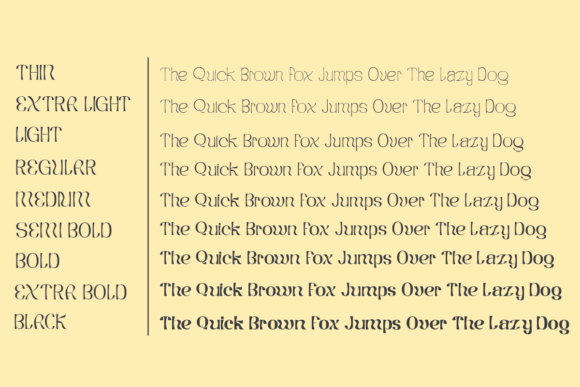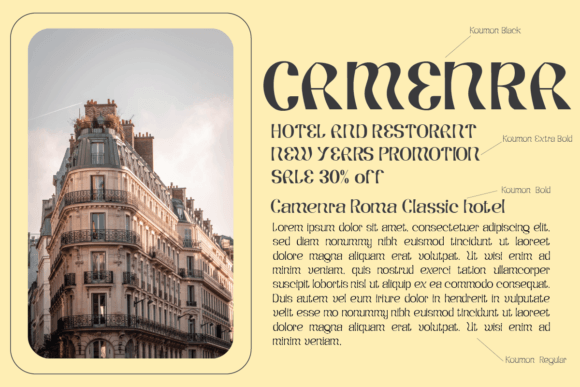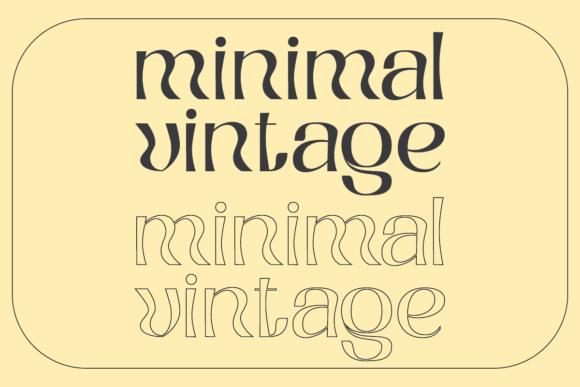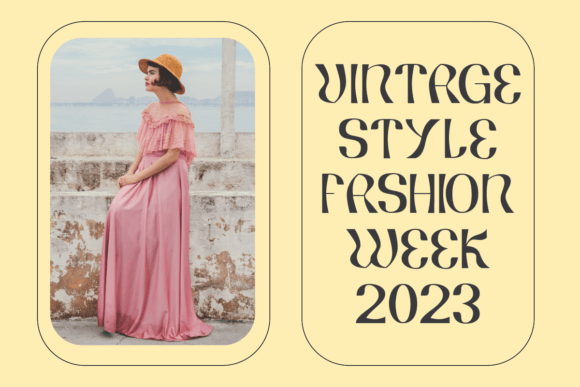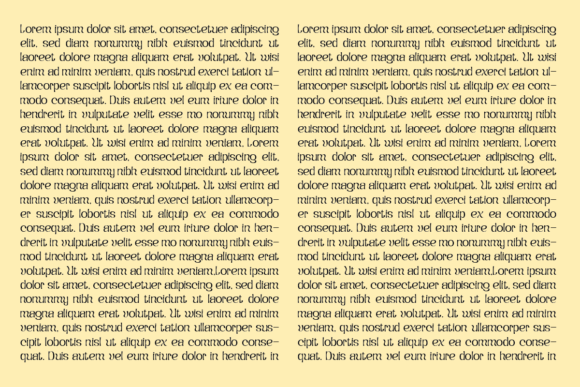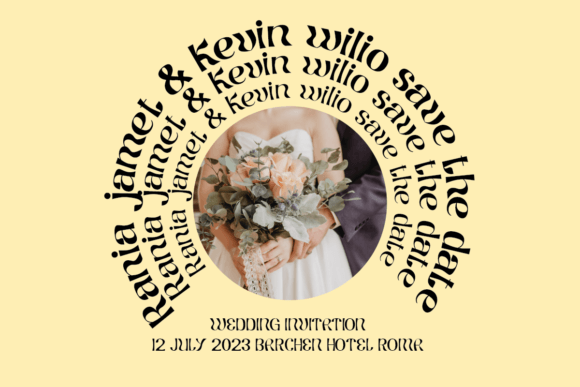
Introduction to Koumon Font
Remember that moment when a design element just clicks into place, elevating your entire creative project to the next level? For many designers, it’s a rush of excitement and a sense of pride in their work. One of the key elements that can make or break a design is the typography. That’s where the Koumon Font comes in – a modern family of display fonts designed to make your creative vision shine.
Whether you’re working on a magazine spread, a poster, or even a branding project, the Koumon Font offers unparalleled versatility. With its range of weights, from the thinnest lines to the boldest black, you can customize your design to perfection. Plus, its clean lines and transparent background make it a high-quality design resource that’s sure to impress.
- Includes a range of stylish characters, making it perfect for adding a unique touch to your design.
- Designed with a focus on legibility and readability, making it suitable for both digital and print projects.
Honest Review: Koumon Font
I recently stumbled upon the Koumon Font, and I must say it’s been a great addition to my design resources. The high quality of this font is immediately apparent, making it perfect for any creative project that requires a modern touch.
- ✨ The Koumon Font is incredibly versatile, suitable for a wide range of design applications, from logos to body text.
- ⚠️ The Koumon Font is a relatively simple design, which may not be suitable for projects that require a more complex or ornate font.
- ⚠️ It’s essential to note that the font may not be suitable for very small text sizes, as it can become difficult to read.
Koumon Font is a high-quality design resource ideal for creative projects. Its unique style and versatility make it a great addition to any design arsenal.
Koumon Font is ideal for a variety of creative projects, including:
– Logo design
– Branding materials
– Infographics
– Any other design project that requires a unique and high-quality font.
Yes, the Koumon Font is a high-quality font designed to meet the needs of designers working on creative projects. It features a clear, legible design and a wide range of characters, making it suitable for use in a variety of contexts, from body text to headings and titles.